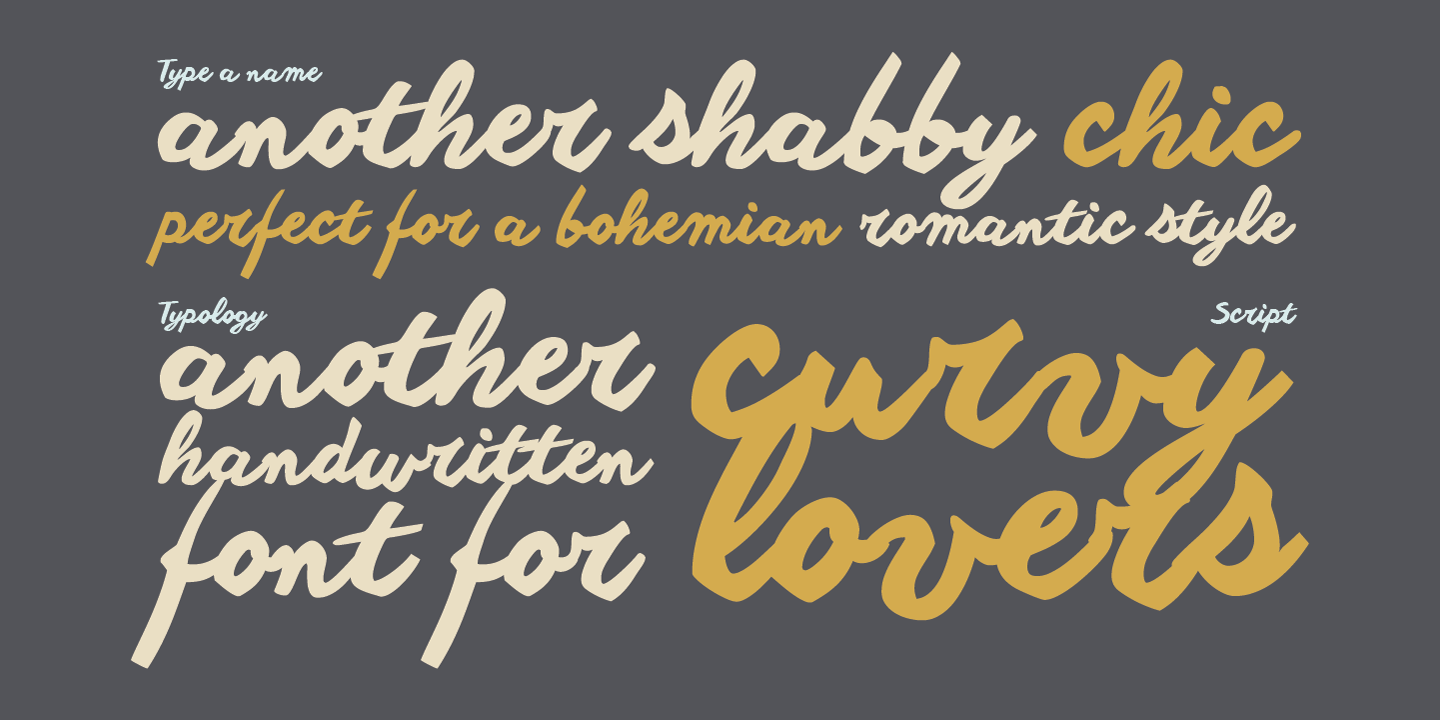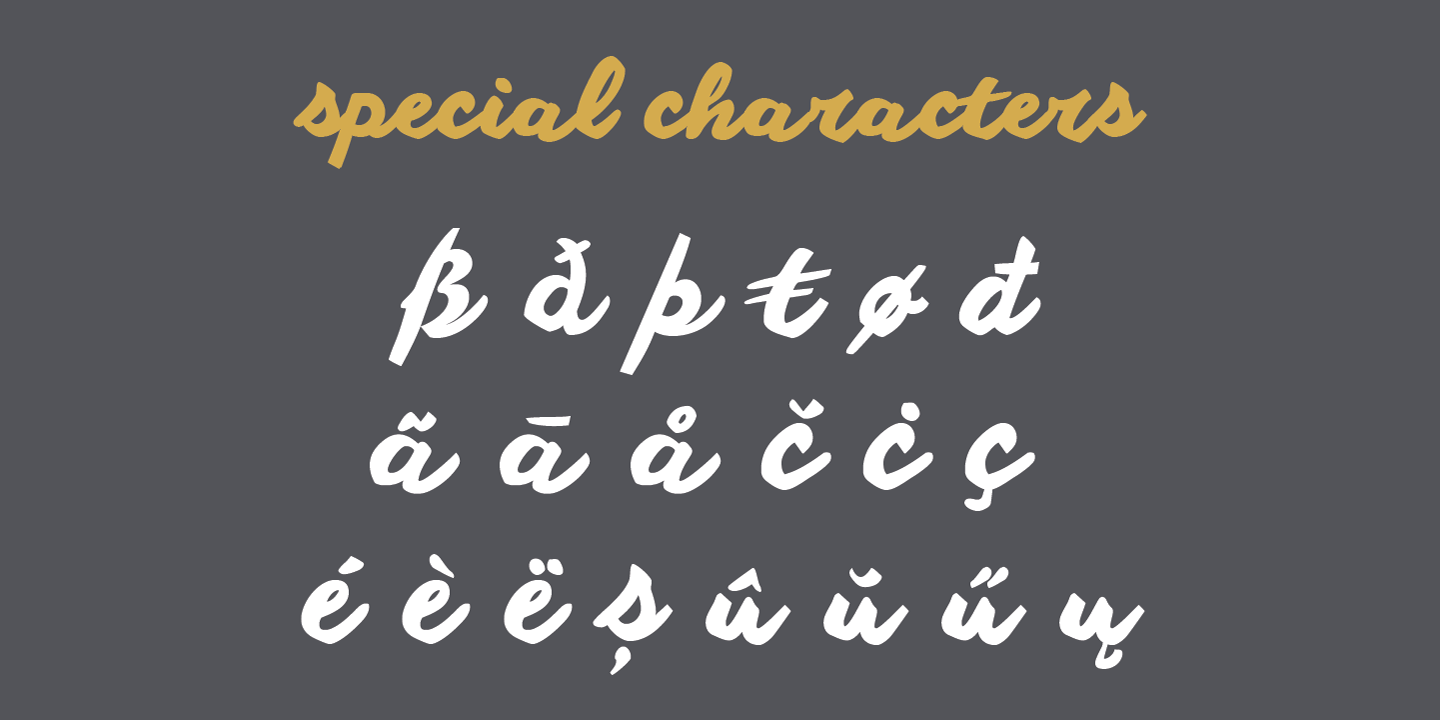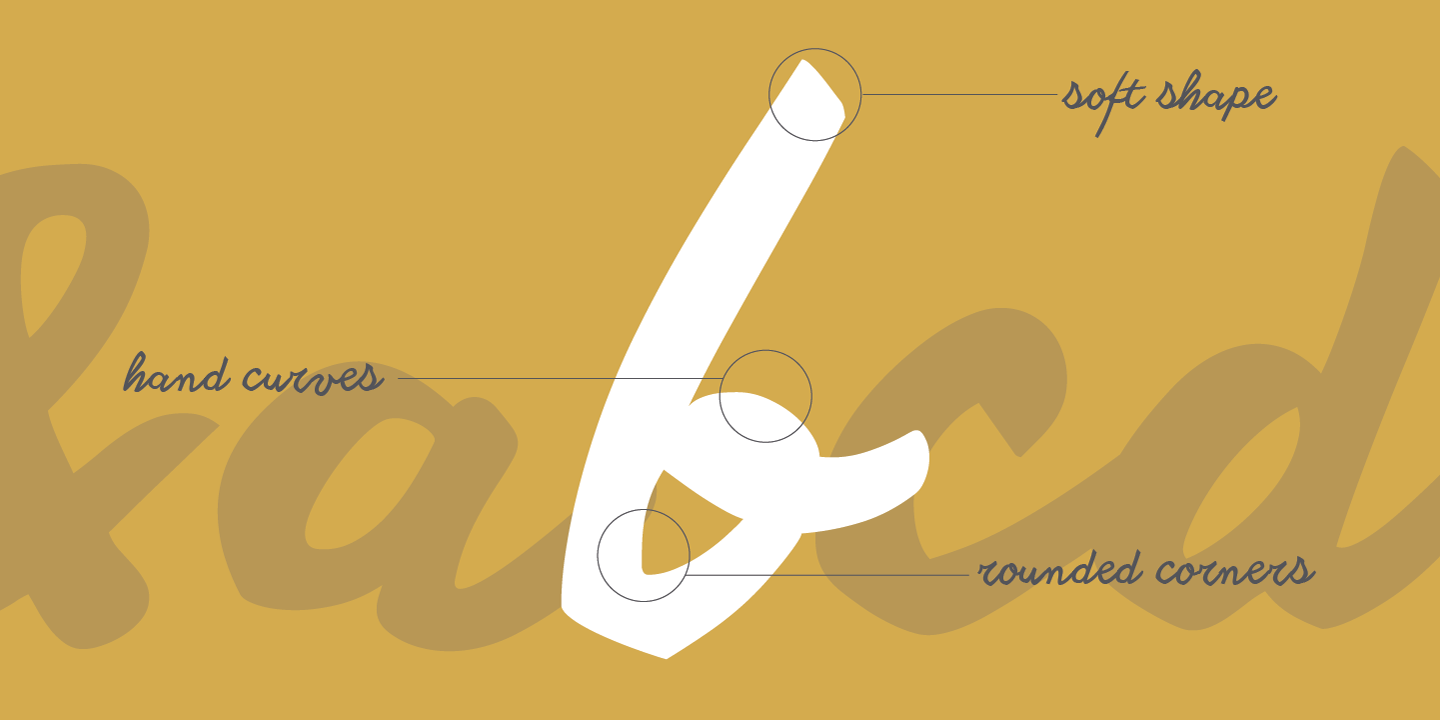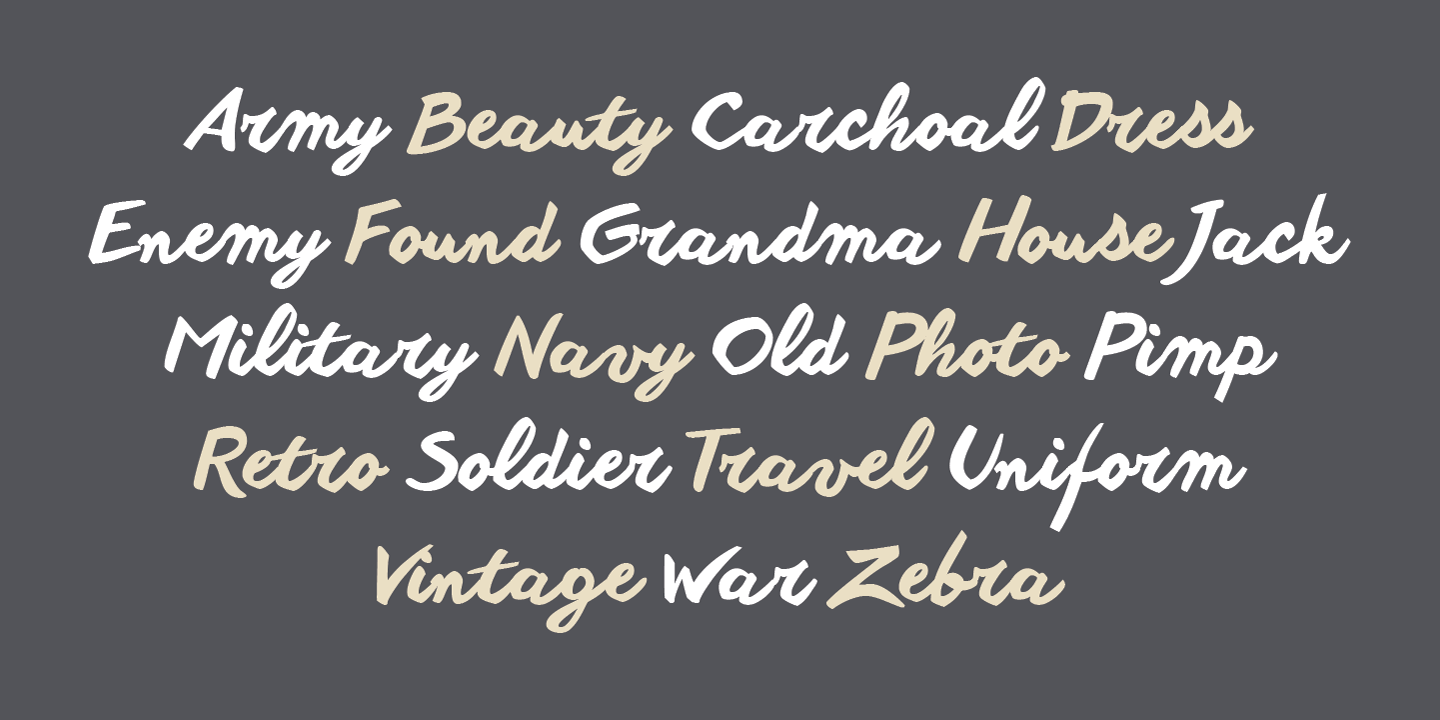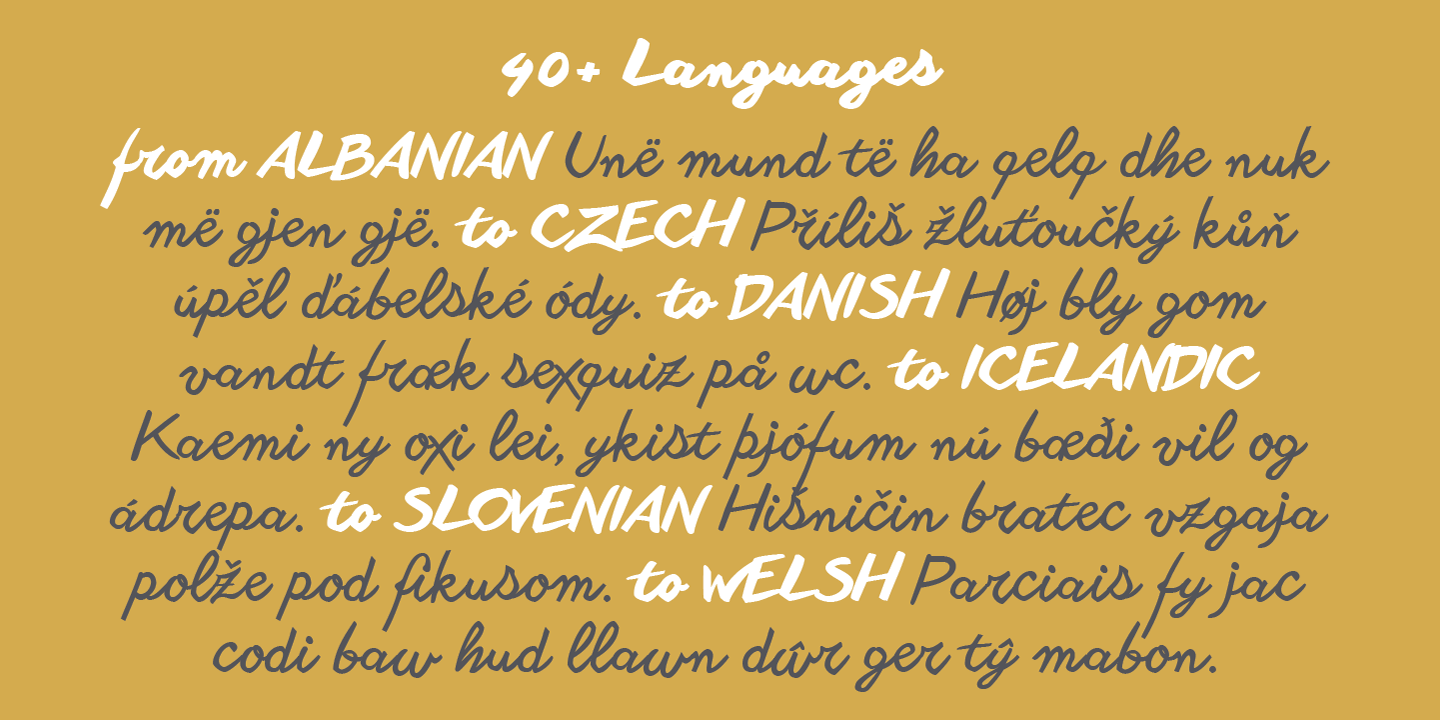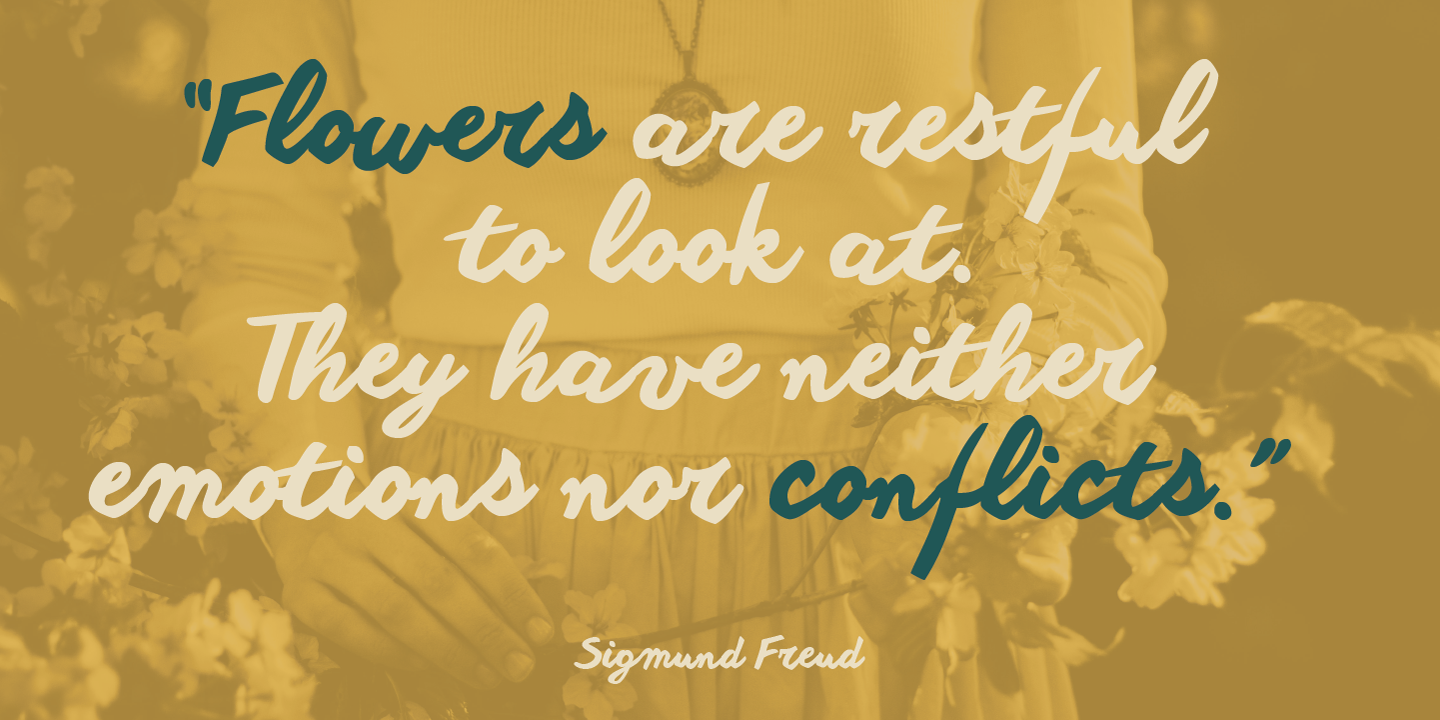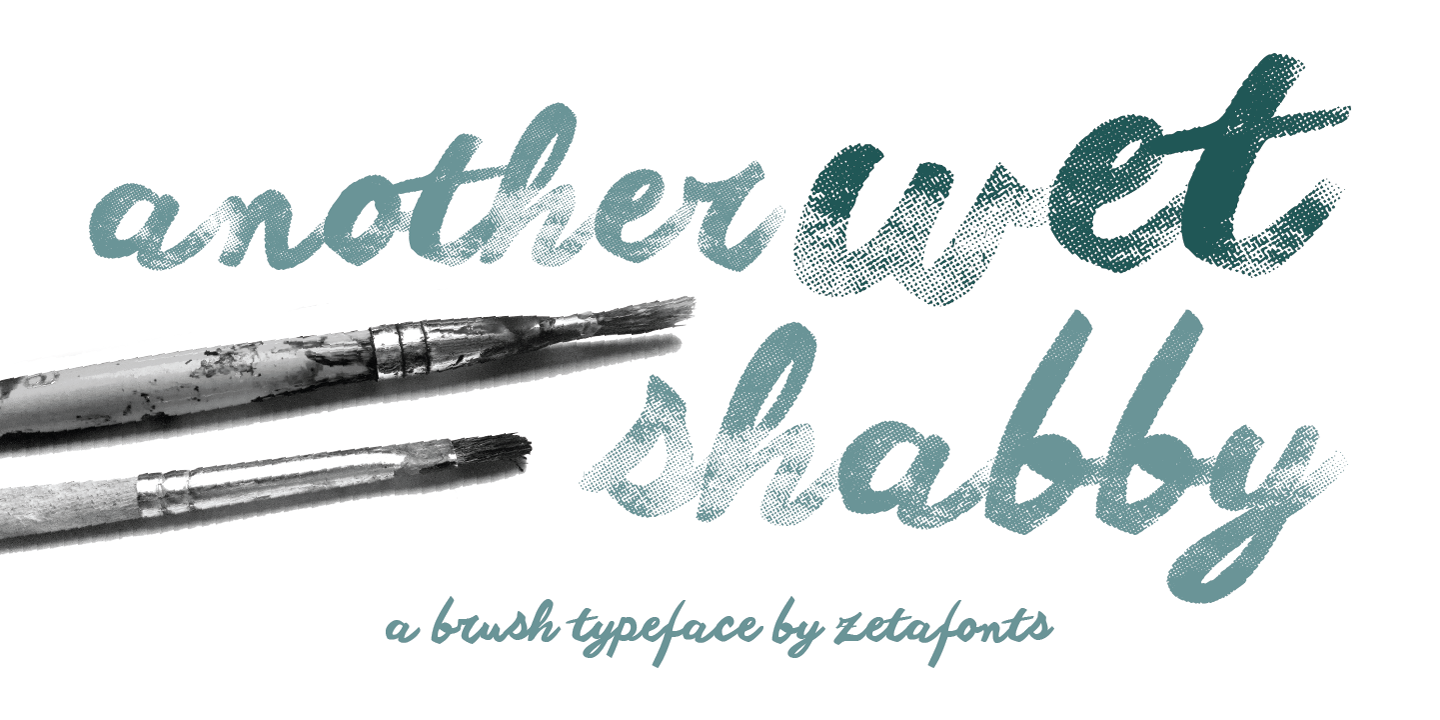
Another Shabby is a script typeface family designed by Francesco Canovaro for Zetanfonts.
Its shapes are defined by rough, wide brushstrokes, slightly rounded in corners to mimic the feel of a real handwritten casual script.
Another Wet Shabby covers over 40 languages that use the Latin alphabet, with a full range of accents and diacritics. The full family comes in four weights. The Raw and Wet versions allow you to create watercolor-textured and multilayered color images without having to resort to photo-retouch software. All characters are texturized for a watercolour (another wet shabby) or a chalk (another raw shabby) effect. Take care: the textured typeface is very processor intensive and should not be used for long text blocks. Previewing in MacOs and Windows may take some time or freeze your system temporarily. Try before buying!